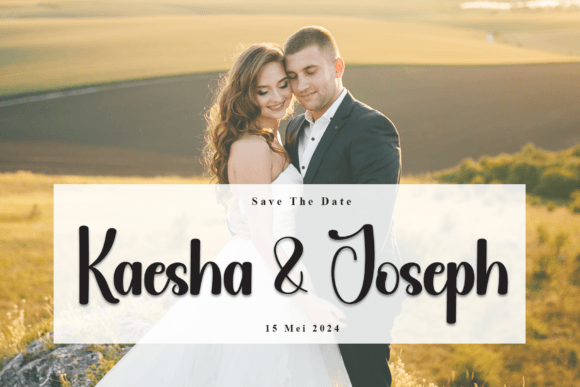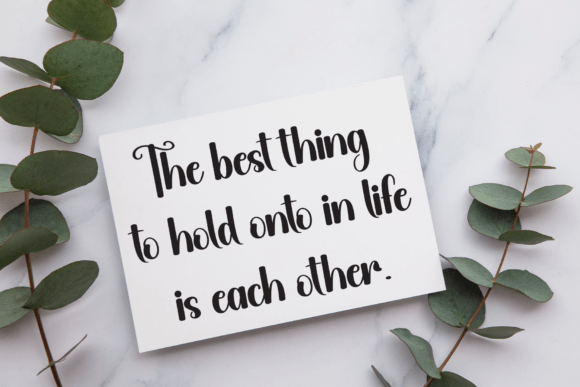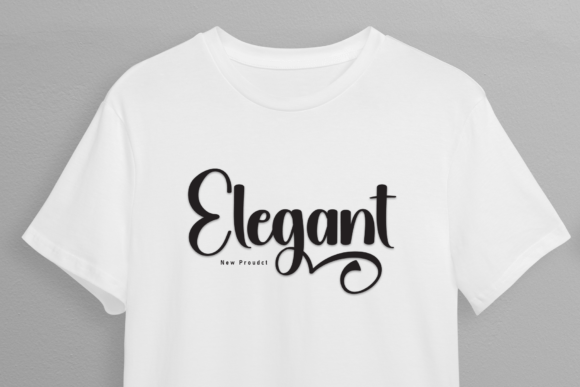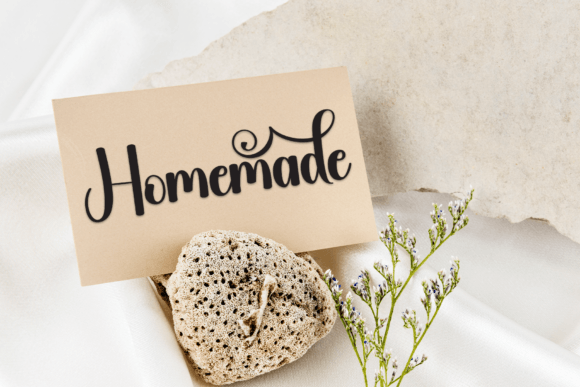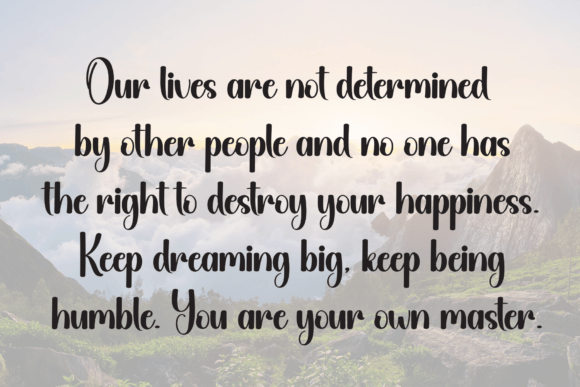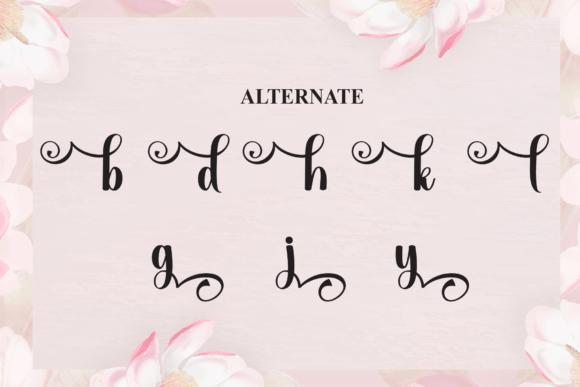
Introducing Angelic Font: The Sweet and Friendly Handwritten Font
Are you looking for a font that can add a touch of sweetness and friendliness to your designs? Look no further than Angelic Font! This beautiful handwritten font is perfect for designers and crafters who want to create unique and eye-catching projects. In this article, we’ll take a closer look at Angelic Font and explore its features, benefits, and uses.
What is Angelic Font?
Angelic Font is a sweet and friendly handwritten font that is designed to make your designs stand out. Its natural and unique style makes it incredibly fitting to a large pool of designs, from invitations and greeting cards to branding and packaging. The font’s playful and whimsical feel makes it perfect for projects that require a personal touch.
Features of Angelic Font
So, what makes Angelic Font so special? Here are some of its key features:
- Handwritten style: Angelic Font has a beautiful handwritten style that gives it a personal and unique feel.
- Sweet and friendly: The font’s sweet and friendly tone makes it perfect for projects that require a warm and approachable feel.
- Natural and unique: Angelic Font’s natural and unique style makes it incredibly versatile and suitable for a wide range of designs.
- Easy to read: Despite its playful feel, Angelic Font is easy to read and understand, making it perfect for body text and headlines.
Benefits of Using Angelic Font
So, why should you use Angelic Font in your designs? Here are some of its benefits:
- Adds a personal touch: Angelic Font’s handwritten style adds a personal touch to your designs, making them more relatable and engaging.
- Versatile: The font’s unique style makes it suitable for a wide range of designs, from feminine and playful to elegant and sophisticated.
- Time-saving: With Angelic Font, you can create beautiful designs quickly and easily, saving you time and effort.
Uses of Angelic Font
So, what can you use Angelic Font for? The possibilities are endless! Here are some ideas to get you started:
- Invitations and greeting cards: Angelic Font is perfect for creating beautiful invitations and greeting cards for special occasions.
- Branding and packaging: The font’s unique style makes it suitable for branding and packaging projects that require a personal touch.
- Social media graphics: Angelic Font can add a touch of sweetness and friendliness to your social media graphics, making them more engaging and shareable.
- Blog and website design: The font’s easy-to-read style makes it perfect for blog and website design, adding a personal touch to your online presence.
Tips for Using Angelic Font
Here are some tips for using Angelic Font in your designs:
- Experiment with colors: Angelic Font looks great in a variety of colors, so don’t be afraid to experiment and find the perfect hue for your design.
- Pair with other fonts: The font’s unique style makes it easy to pair with other fonts, creating a beautiful and harmonious design.
- Use it for headlines and body text: Angelic Font is easy to read, making it perfect for both headlines and body text.
- Add a personal touch: Use Angelic Font to add a personal touch to your designs, making them more relatable and engaging.
In conclusion, Angelic Font is a sweet and friendly handwritten font that is perfect for designers and crafters who want to create unique and eye-catching projects. Its natural and unique style makes it incredibly versatile and suitable for a wide range of designs. With its easy-to-read style and personal touch, Angelic Font is sure to become a favorite in your design arsenal. So why wait? Download Angelic Font today and start creating beautiful designs that will capture the hearts of your audience!